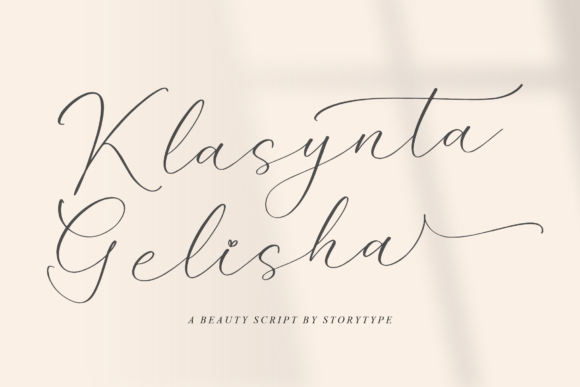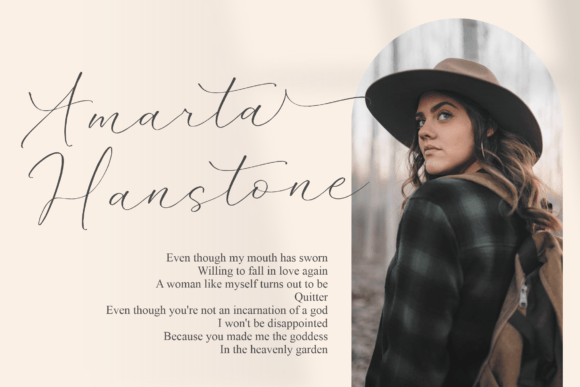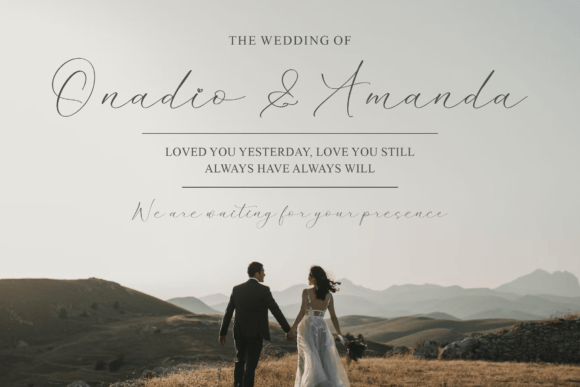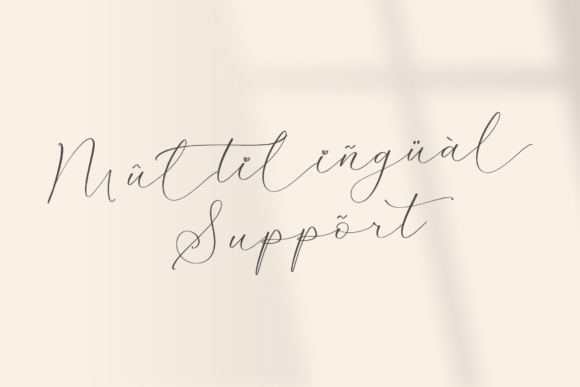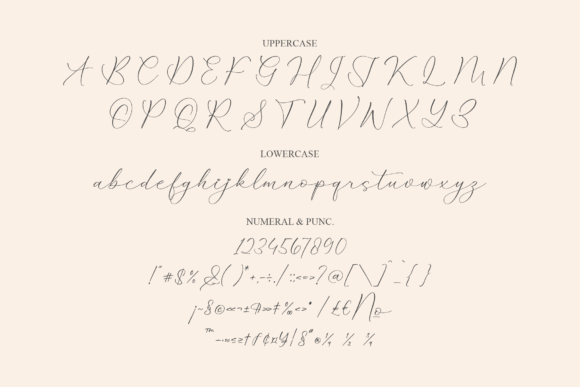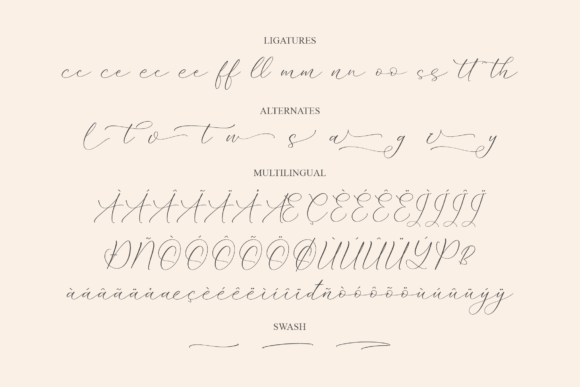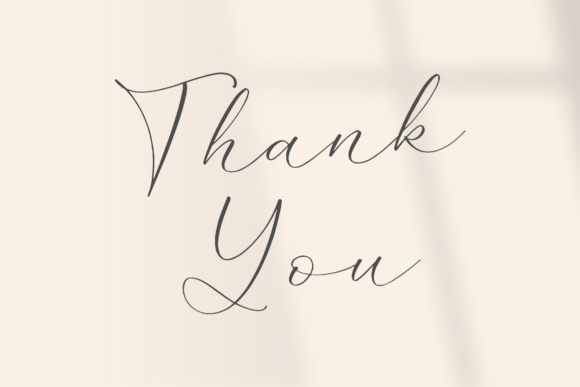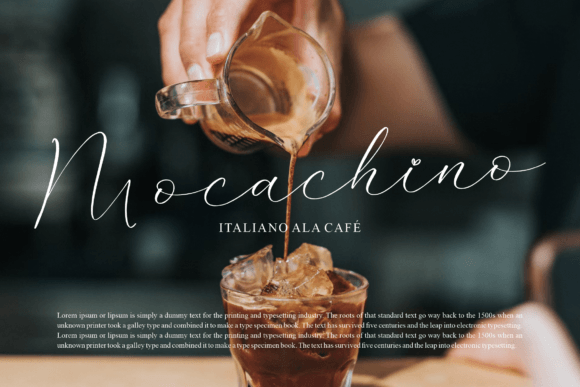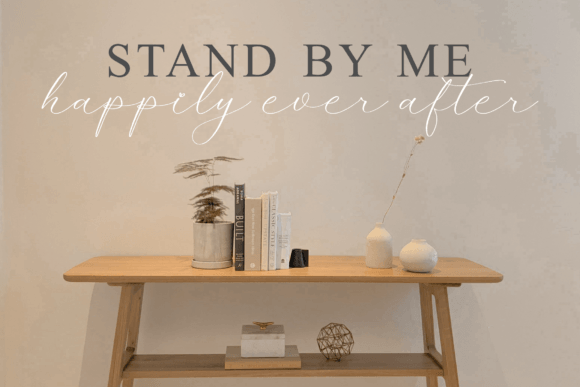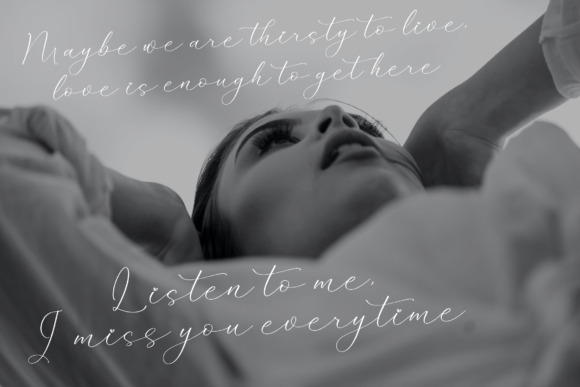
Klasynta Gelisha Font
About Klasynta Gelisha Font
**Klasynta Gelisha** is a luxurious script font that exudes elegance and sophistication with its unique style and modern look. This typeface is a perfect choice for a wide range of design applications, including elegant and luxury logos, book or movie title designs, fashion brands, magazine layouts, clothing branding, lettering projects, inspirational quotes, and much more. With its combination of beauty and versatility, **Klasynta Gelisha** is a font that can elevate your designs to a higher level of sophistication.
The font’s luxurious script style is marked by its graceful and flowing letterforms. It evokes a sense of opulence and refinement, making it well-suited for projects that require a touch of elegance and luxury. Whether you’re creating a high-end brand identity, designing a magazine cover, or adding a touch of class to your quotes and lettering, **Klasynta Gelisha** delivers on both aesthetics and functionality.
**Klasynta Gelisha** is PUA encoded, which means it provides easy access to a wide range of glyphs and swashes. This feature allows you to customize and embellish your text with additional decorative elements, providing you with creative freedom to enhance your designs.
What sets **Klasynta Gelisha** apart is its ability to convey a sense of timeless sophistication and luxury. It captures the essence of upscale design and invites your audience to appreciate the beauty and craftsmanship behind your projects. With **Klasynta Gelisha** as part of your creative toolkit, you have the means to craft designs that exude class and elegance.
In conclusion, **Klasynta Gelisha** is a font that brings a luxurious and modern touch to your design projects. Embrace its unique style and elegant letterforms, and let it inspire you to create designs that exude sophistication and charm. With **Klasynta Gelisha** at your disposal, your creative possibilities are expansive, enabling you to craft elegant and memorable works of art through its luxurious script typography.